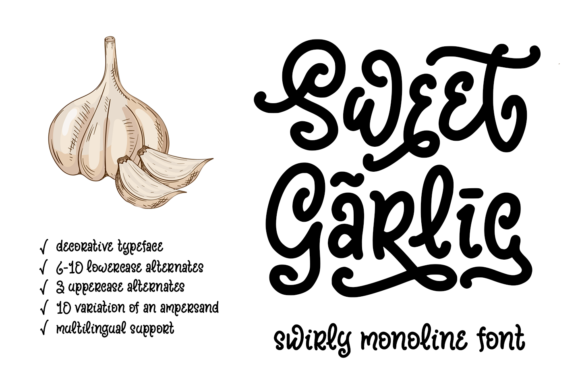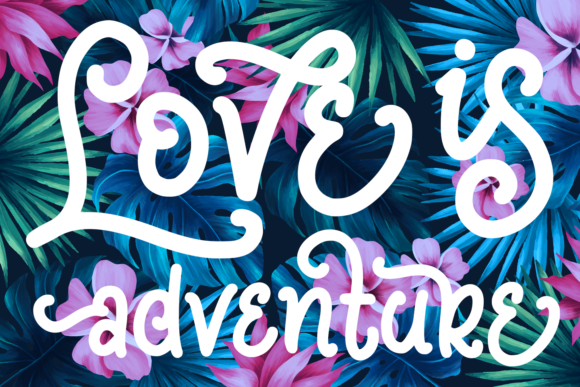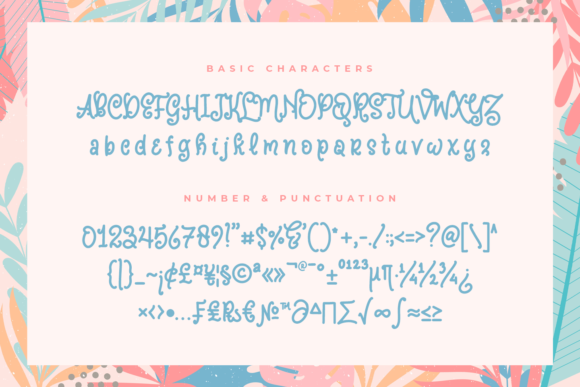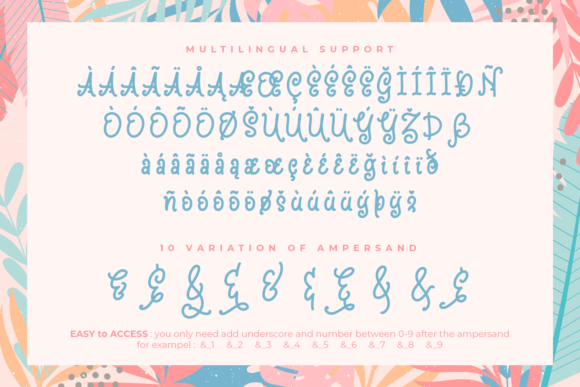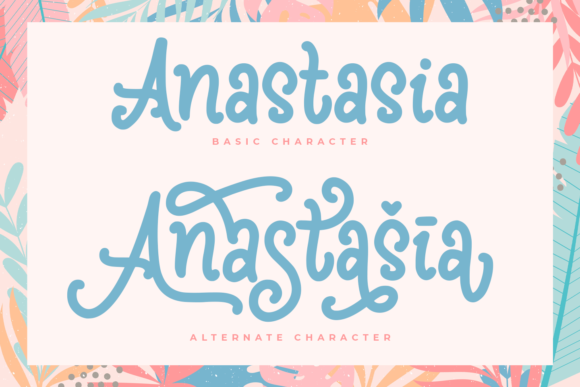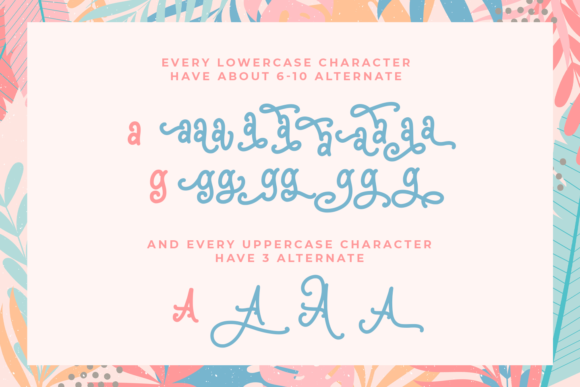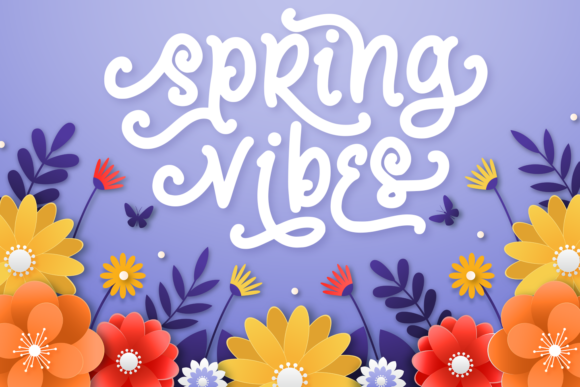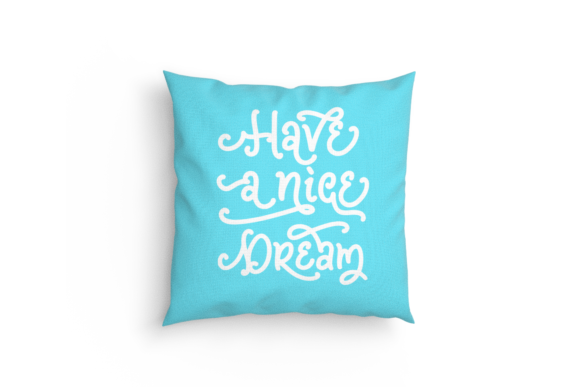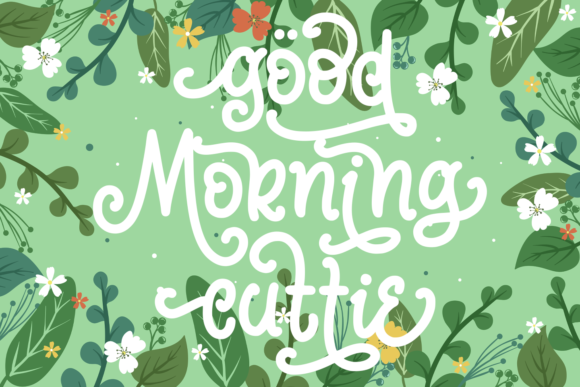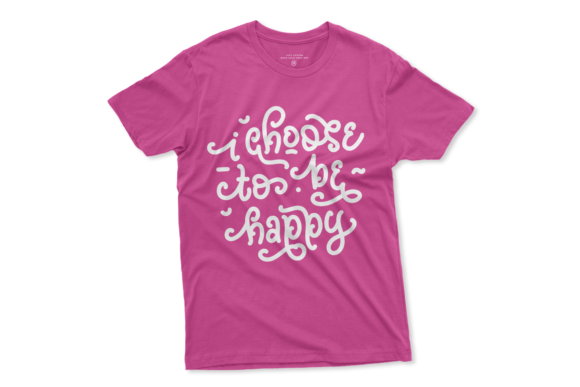
Sweet Garlic Font
About Sweet Garlic Font
Sweet Garlic is a simple and casual sript font with an undeniably clean feel. With its neat and beautiful arrangement of letters, this typeface will look outstanding in both formal and non-formal designs.